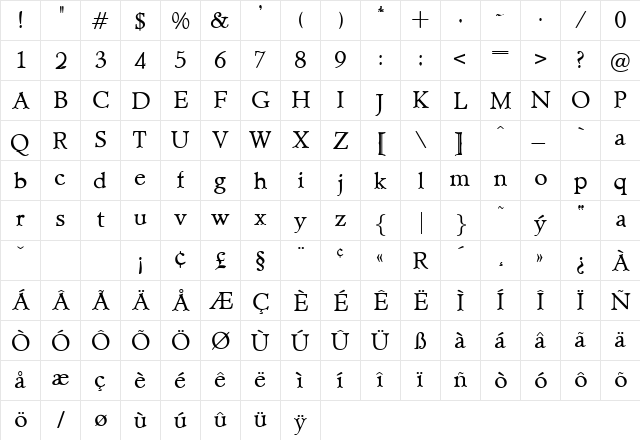
Adderley Regular
Design Context for Adderley Typeface
Adderley offers clean, dependable letterforms without strong stylistic allegiance, making it a practical choice for designers who need flexibility.